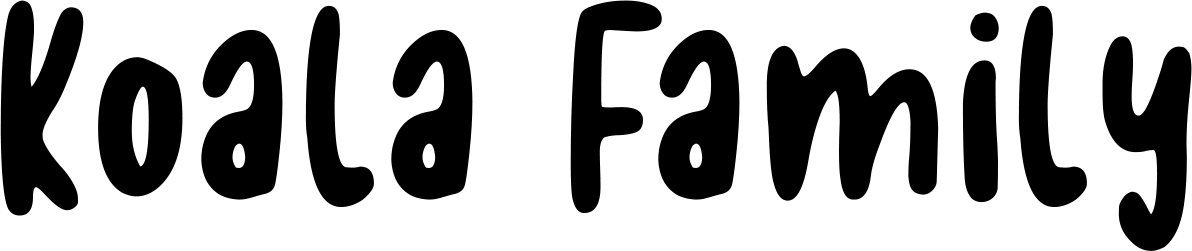
Koala Family Font
Take it easy and go with this handwritten font to share a friendly and fun vibe. You can use Koala Family for cartoons, stationery products, kids’ apparel, and so on. Download and apply it to your text-based designs and…
Take it easy and go with this handwritten font to share a friendly and fun vibe. You can use Koala Family for cartoons, stationery products, kids’ apparel, and so on. Download and apply it to your text-based designs and get ready to blow everyone away. If you wish to get more animal fonts, come and take a look at RB.